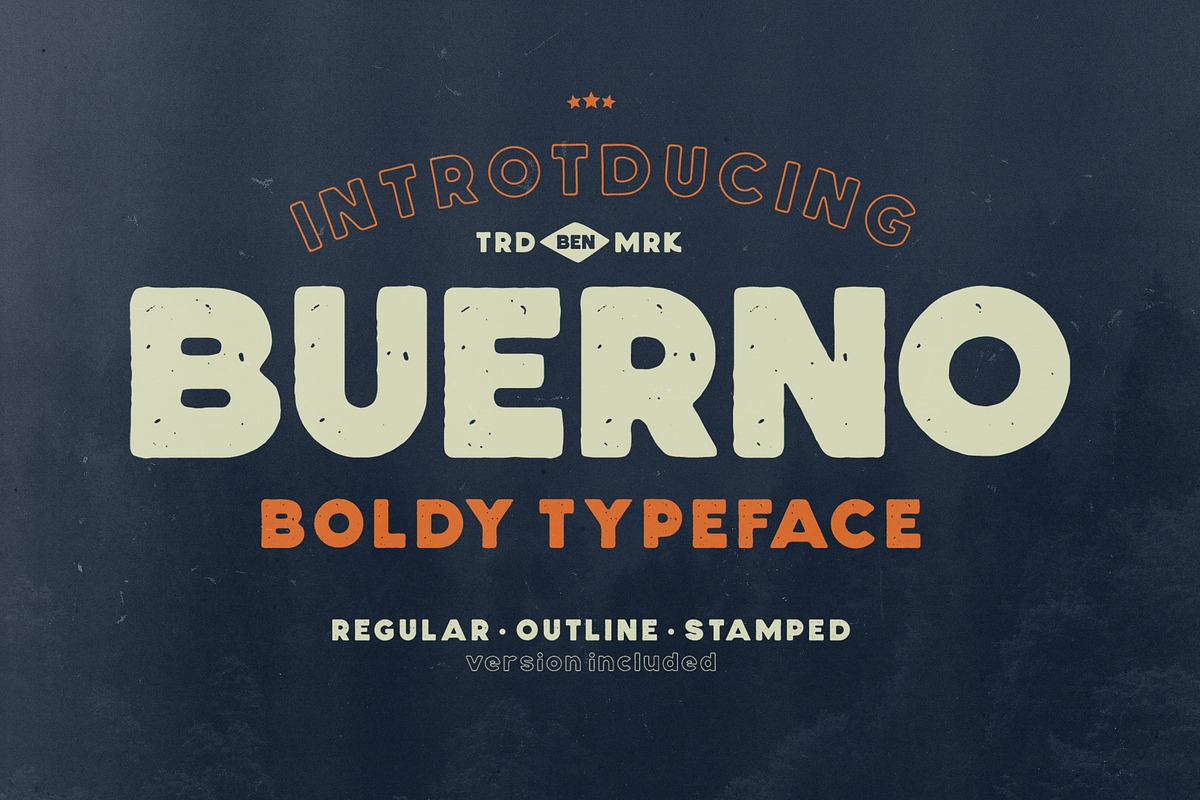
Buerno Font Free Download is a bold and striking typeface designed to grab attention and make a lasting impact. With its thick, strong letterforms and modern design, Buerno is perfect for branding, headlines, posters, logos, and any project that needs to stand out with power and clarity.
This font exudes confidence and professionalism, while its geometric structure ensures high readability. Whether you're designing for tech, fashion, or an event, Buerno brings energy and boldness to your typography. Buerno Font Free Download allows you to test this dynamic typeface in personal projects before purchasing a commercial license.
Make a statement with Buerno — the bold typeface that brings strength and style to every design.